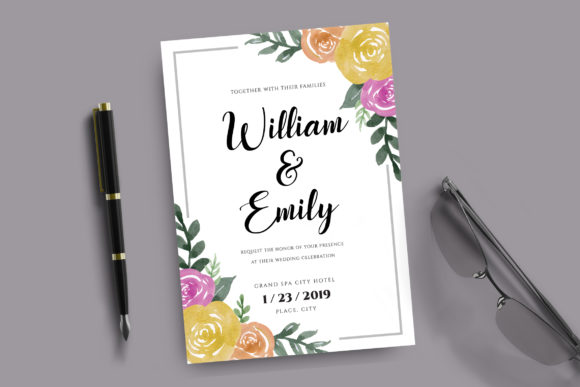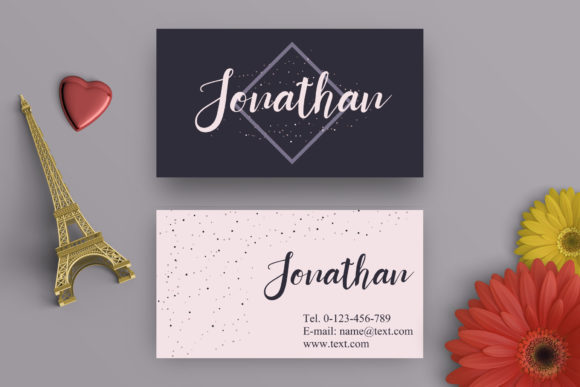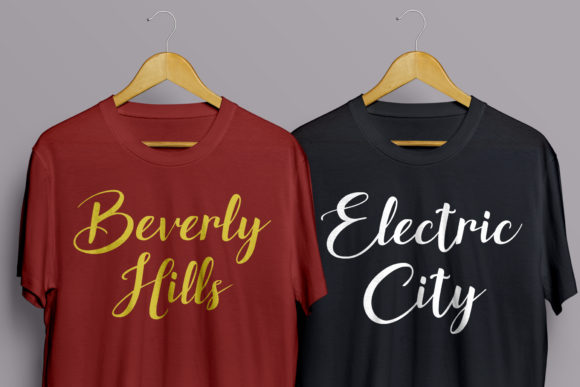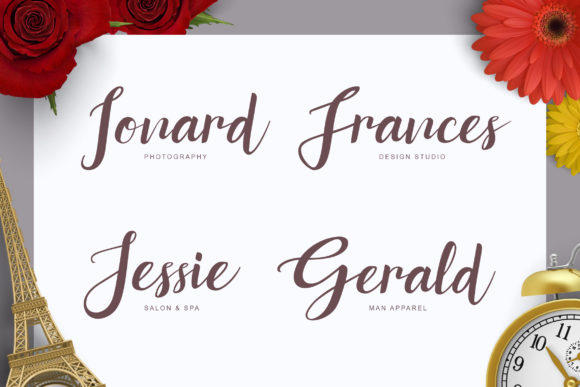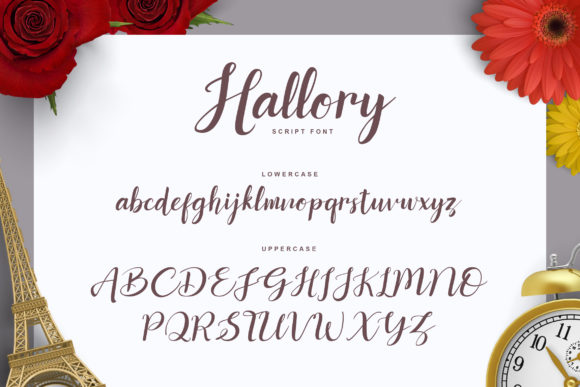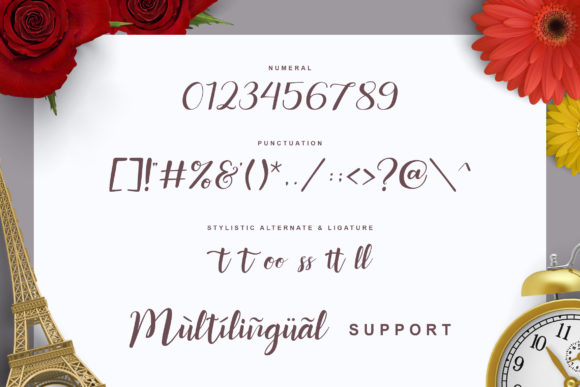
Introducing Hallory Font: The Bold and Beautiful Handwritten Font for Stunning Designs
Are you tired of using the same old fonts for your design projects? Look no further! Hallory Font is here to revolutionize your designs with its incredibly bold and charming handwritten style. This beautiful font is perfect for designers and crafters who want to add a touch of personality and uniqueness to their work. With Hallory Font, you can turn any design project into a standout masterpiece that grabs attention and leaves a lasting impression.
The Characteristics of Hallory Font
Hallory Font is a handwritten font that exudes confidence and charm. Its bold feel is perfect for making a statement, and its elegant strokes add a touch of sophistication to any design. The font is carefully crafted to ensure that it is clear and readable, making it suitable for a wide range of design projects, from logos and branding to posters and social media graphics.
One of the key features of Hallory Font is its versatility. It can be used in various design contexts, from formal to informal, and can be paired with other fonts to create a unique and visually appealing combination. Whether you’re designing for print or digital media, Hallory Font is the perfect choice for adding a personal touch to your work.
Why Designers and Crafters Love Hallory Font
So, what makes Hallory Font a favorite among designers and crafters? Here are just a few reasons:
- Unique and eye-catching: Hallory Font is a one-of-a-kind font that adds a touch of personality to any design. Its bold feel and charming handwritten style make it perfect for creating stunning designs that stand out from the crowd.
- Versatile: Hallory Font can be used in various design contexts, from logos and branding to posters and social media graphics. Its versatility makes it a valuable addition to any designer’s font collection.
- Easy to read: Despite its bold feel, Hallory Font is carefully crafted to ensure that it is clear and readable. This makes it perfect for designs that require a strong visual impact without sacrificing legibility.
- Customizable: Hallory Font can be customized to fit your design needs. You can adjust the font size, color, and style to create a unique look that suits your brand or design project.
How to Use Hallory Font in Your Designs
Using Hallory Font in your designs is easy! Here are a few tips to get you started:
- Pair it with other fonts: Hallory Font can be paired with other fonts to create a unique and visually appealing combination. Try pairing it with a sans-serif font for a modern look or a serif font for a more traditional feel.
- Use it for headlines: Hallory Font is perfect for headlines and titles. Its bold feel and charming handwritten style make it perfect for grabbing attention and adding a touch of personality to your design.
- Experiment with colors: Hallory Font can be used in a variety of colors to create a unique look. Try using it in bold and bright colors to add a pop of color to your design.
In conclusion, Hallory Font is a beautiful and charming handwritten font that is perfect for designers and crafters who want to add a touch of personality and uniqueness to their work. Its bold feel, elegant strokes, and versatility make it a valuable addition to any designer’s font collection. With Hallory Font, you can turn any design project into a standout masterpiece that grabs attention and leaves a lasting impression. So why wait? Try Hallory Font today and take your designs to the next level!